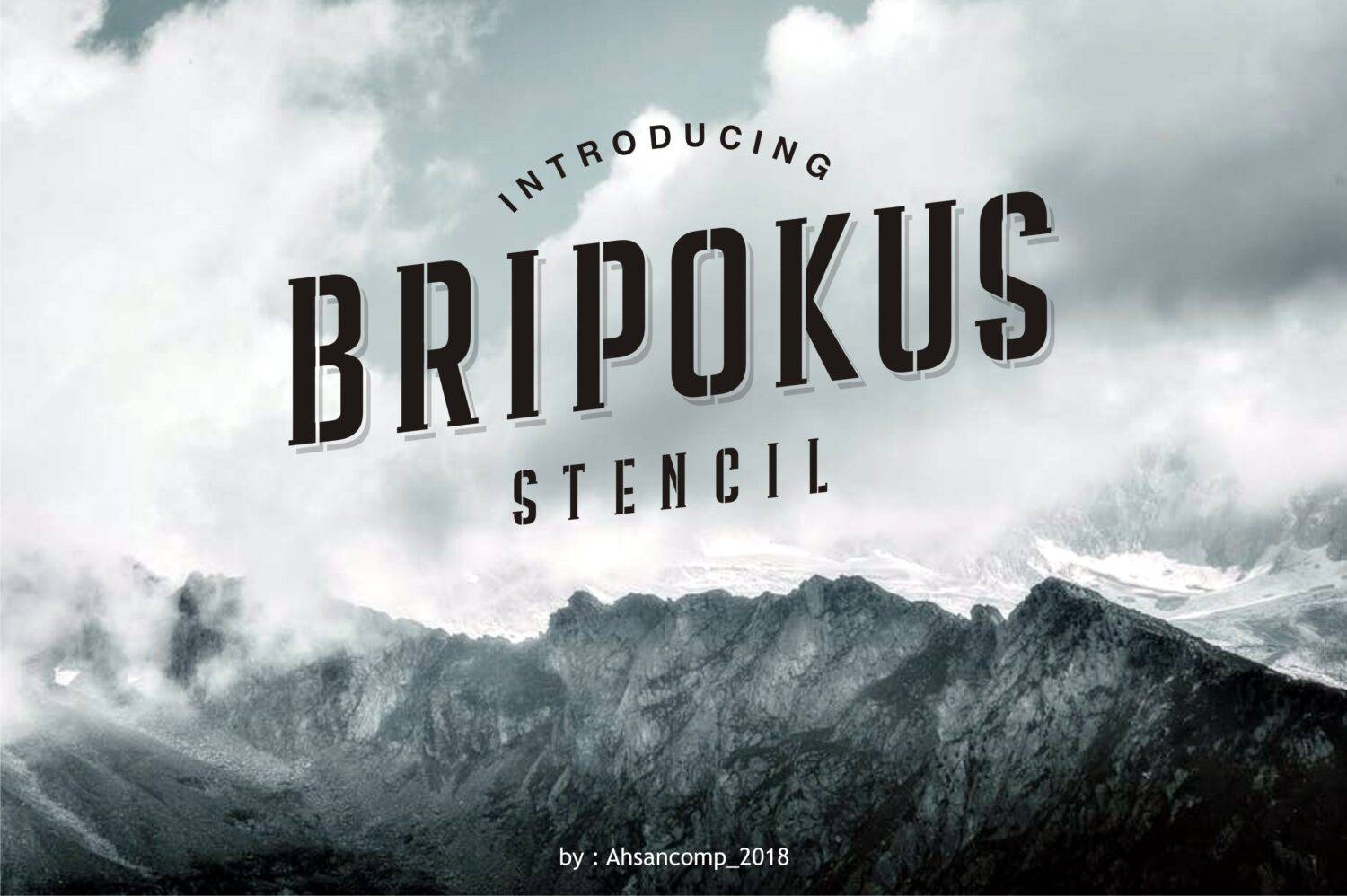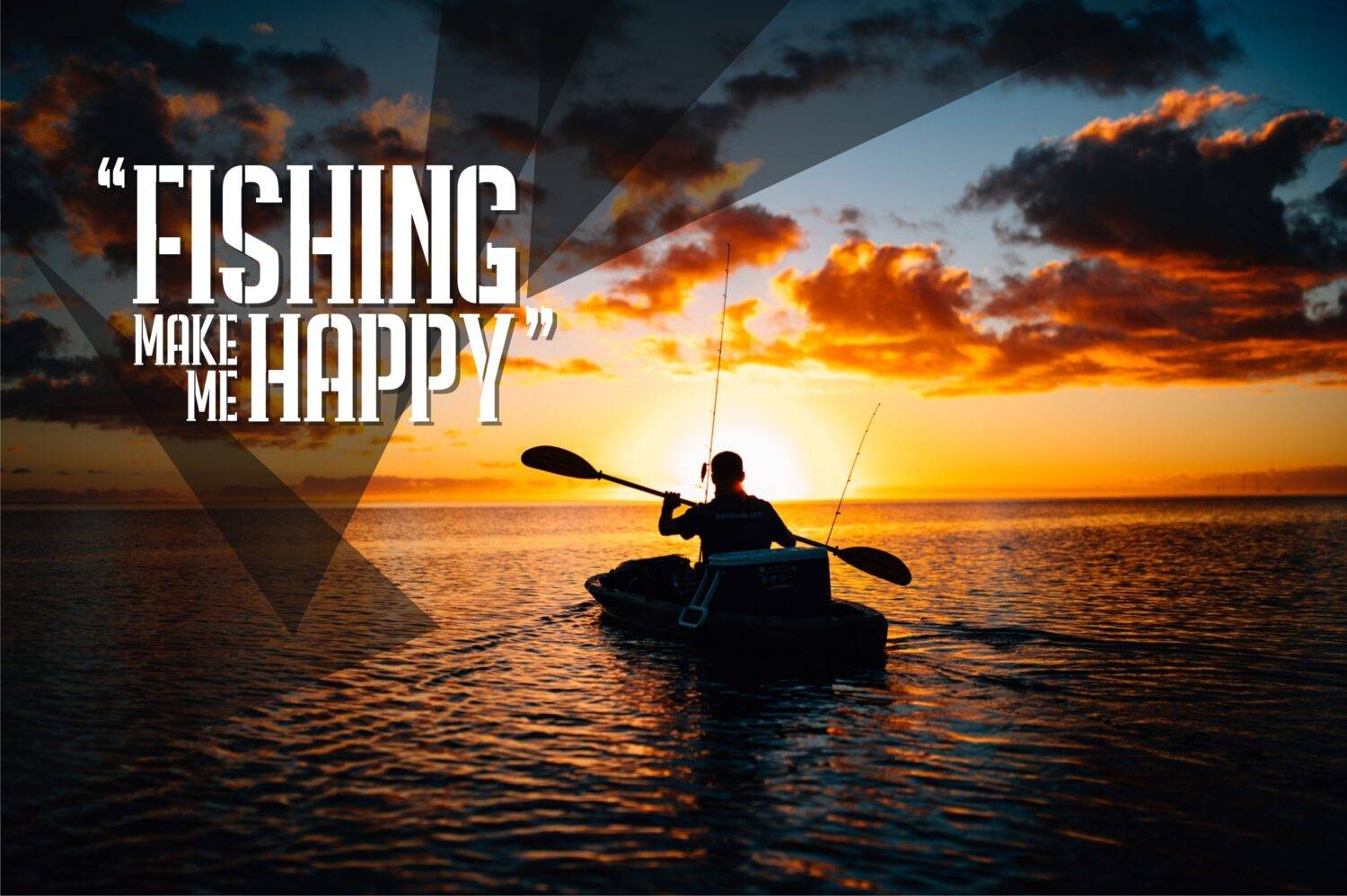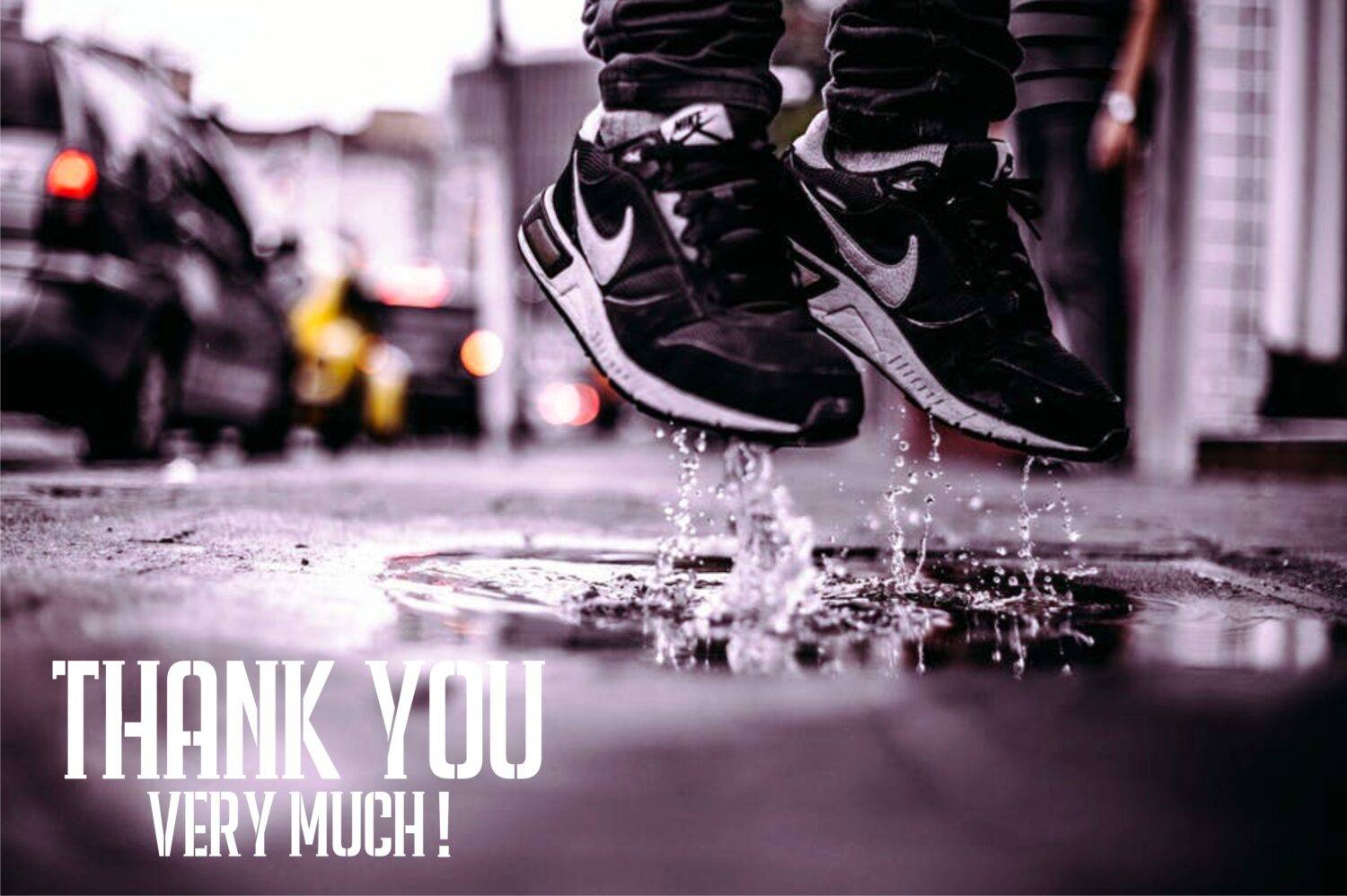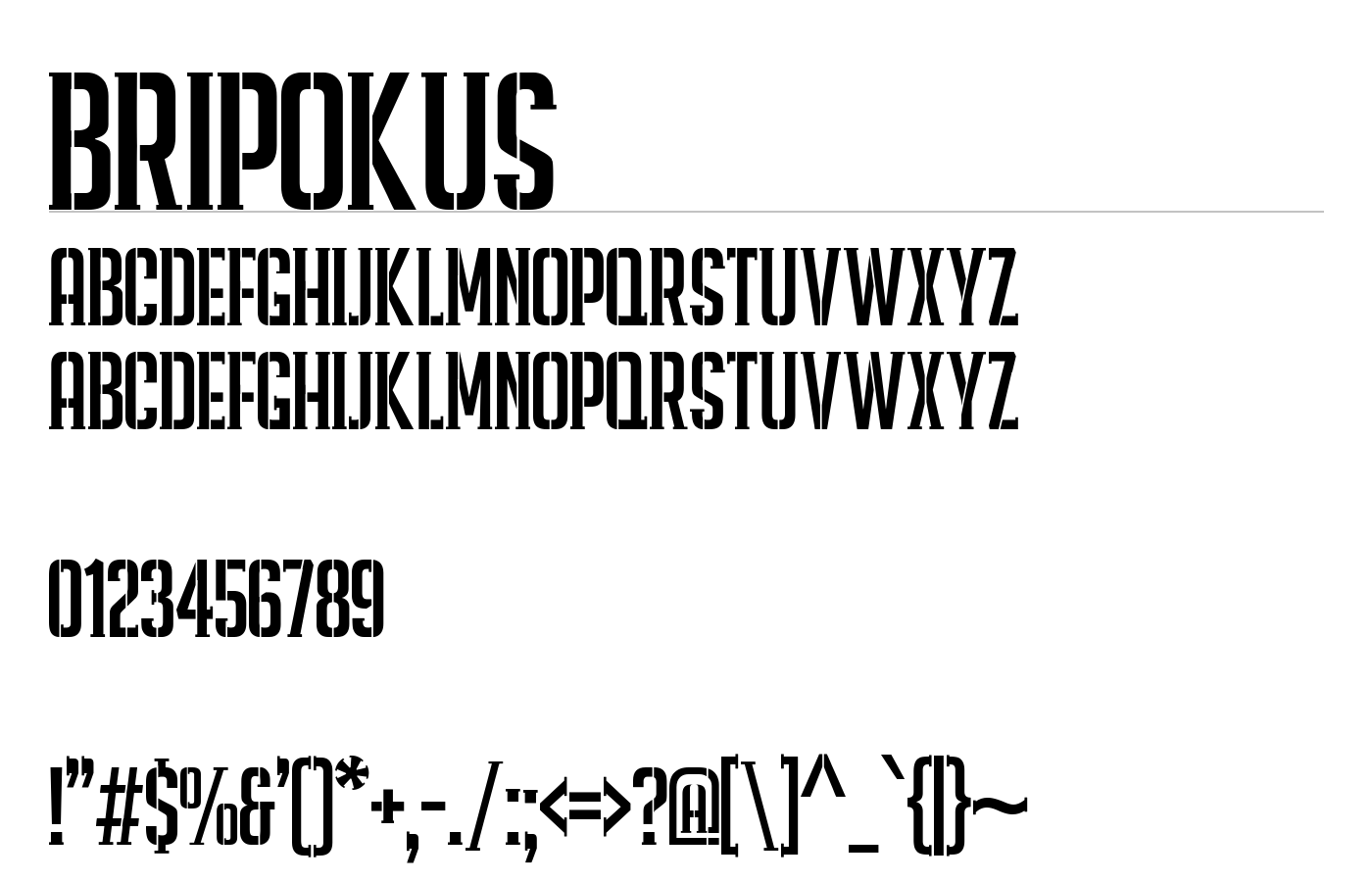
Bripokus is a bold, condensed slab serif font with a strong vertical emphasis and high contrast between thick and thin strokes. Its sharp, blocky serifs and narrowed letterforms create a striking, industrial appearance well suited for eye-catching headlines, posters, and branding that demands a powerful, modern look. This font works best in display settings where its unique style and commanding presence can make a memorable impact.
Bripokus Font
About Bripokus Font